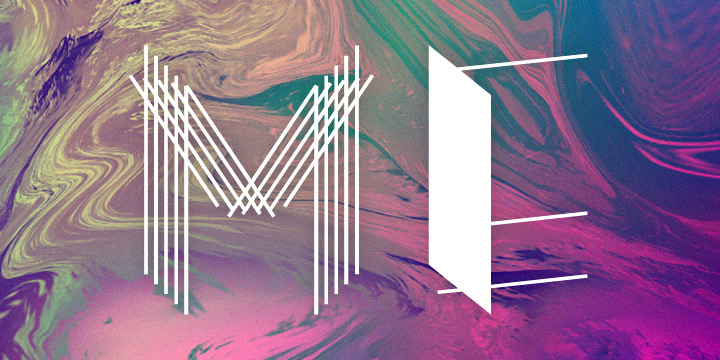
MeM is a typeface created by Elena Schadel & Jacob Runge, published by 26+ in 2012. This powerful font is an eccentric experimental type that benefits from the alternating letters technology to bring a lot originality into your designs.